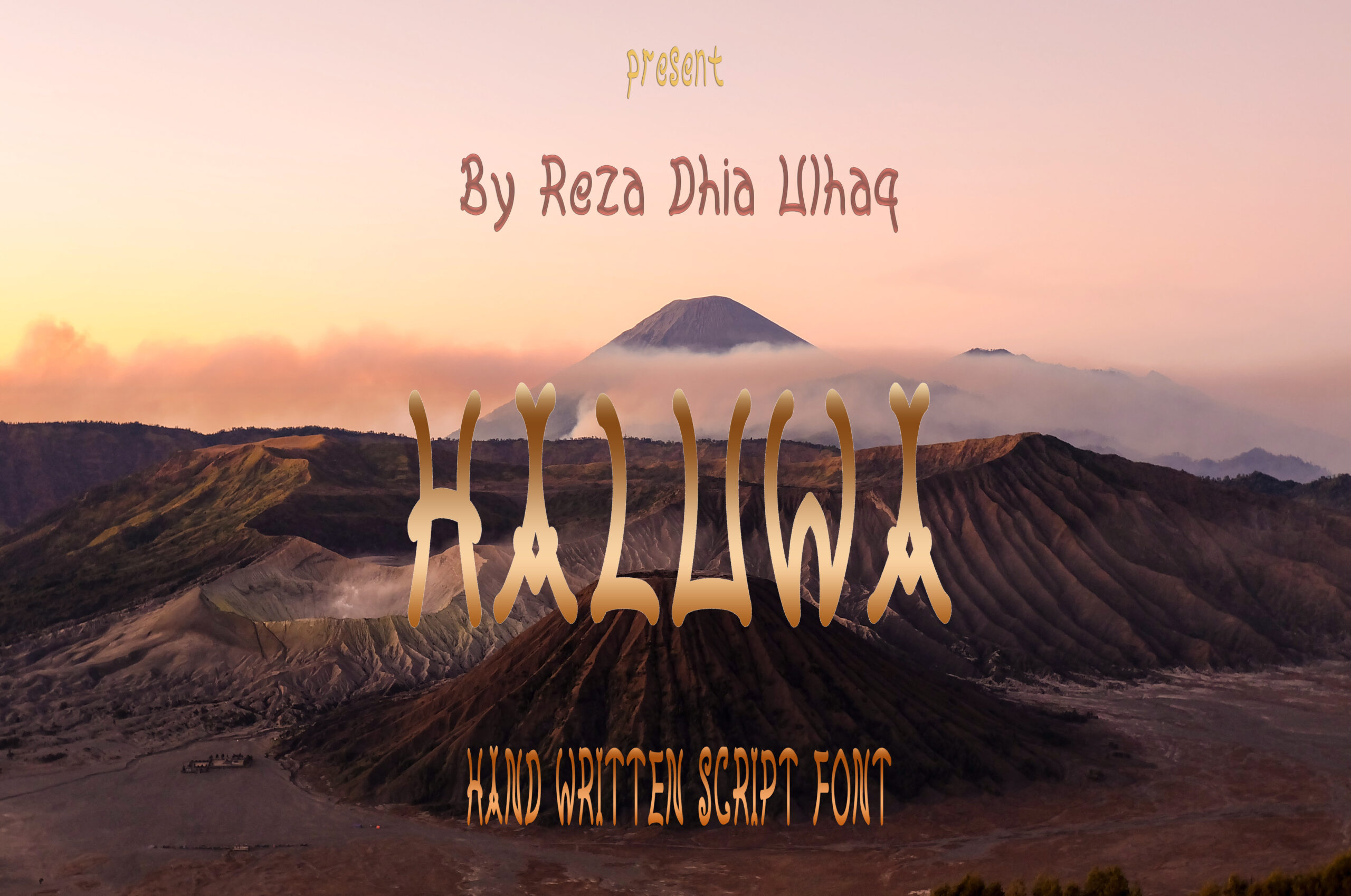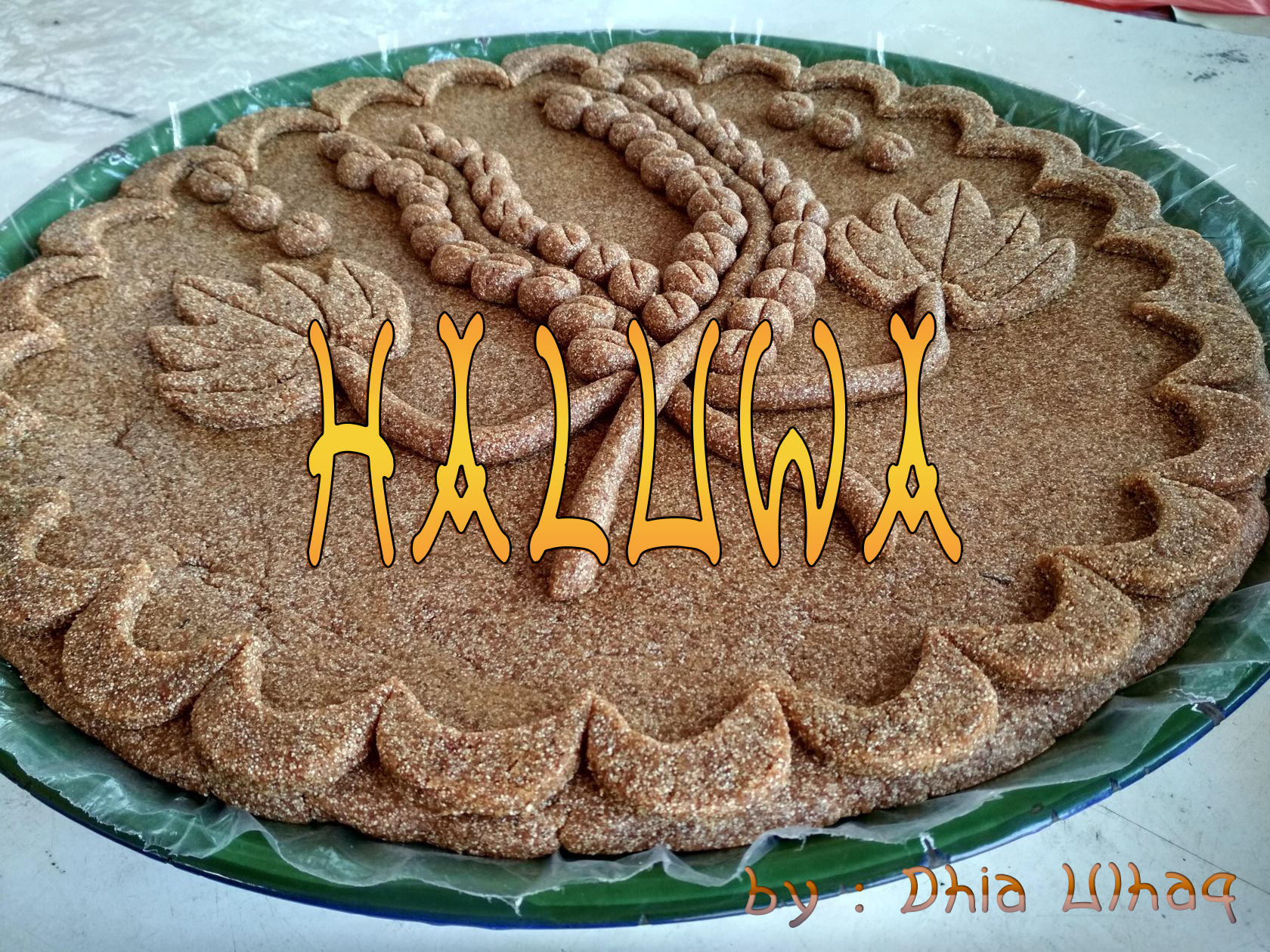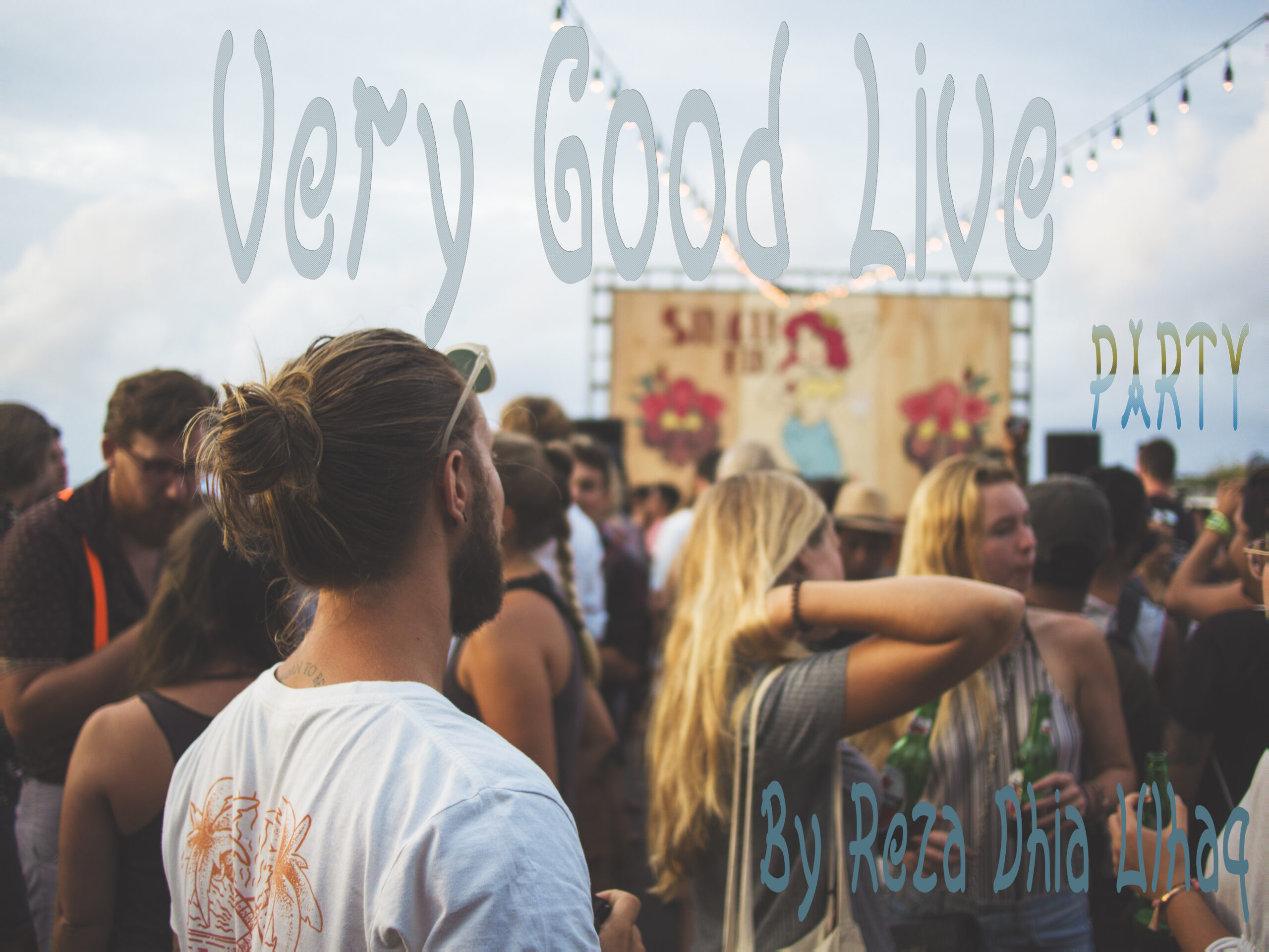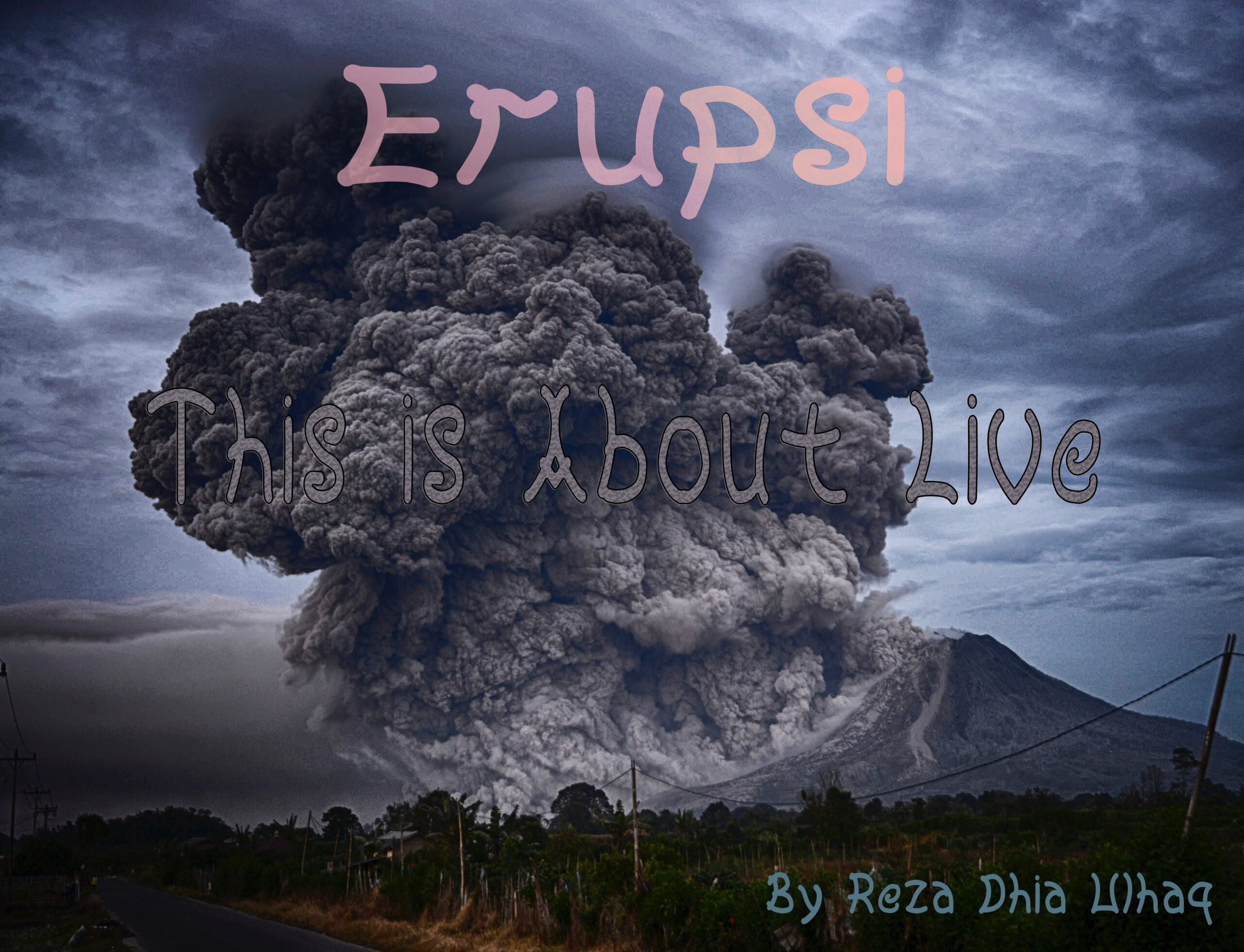
Haluwa Font
About Haluwa Font
Haluwa is a fun handwritten font, ideal for playful and relaxed designs. This handwritten font is cheery and can add some lightheartedness to your projects.